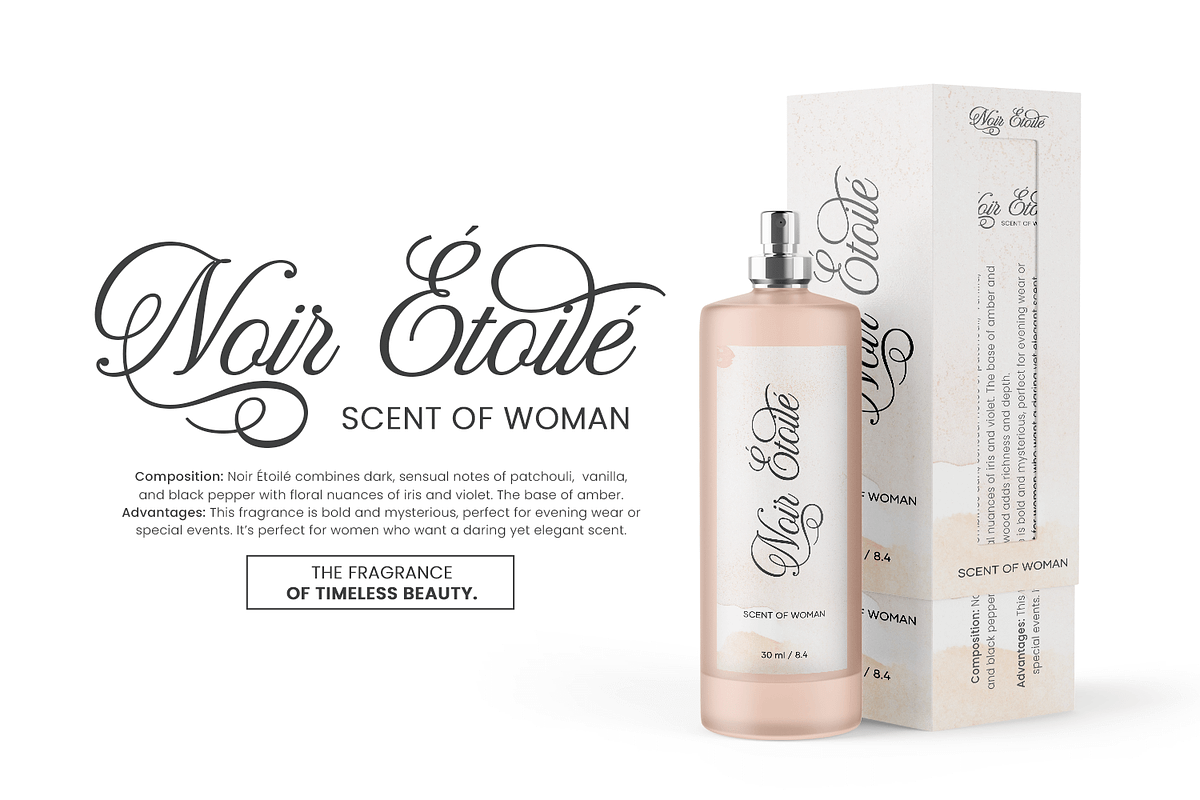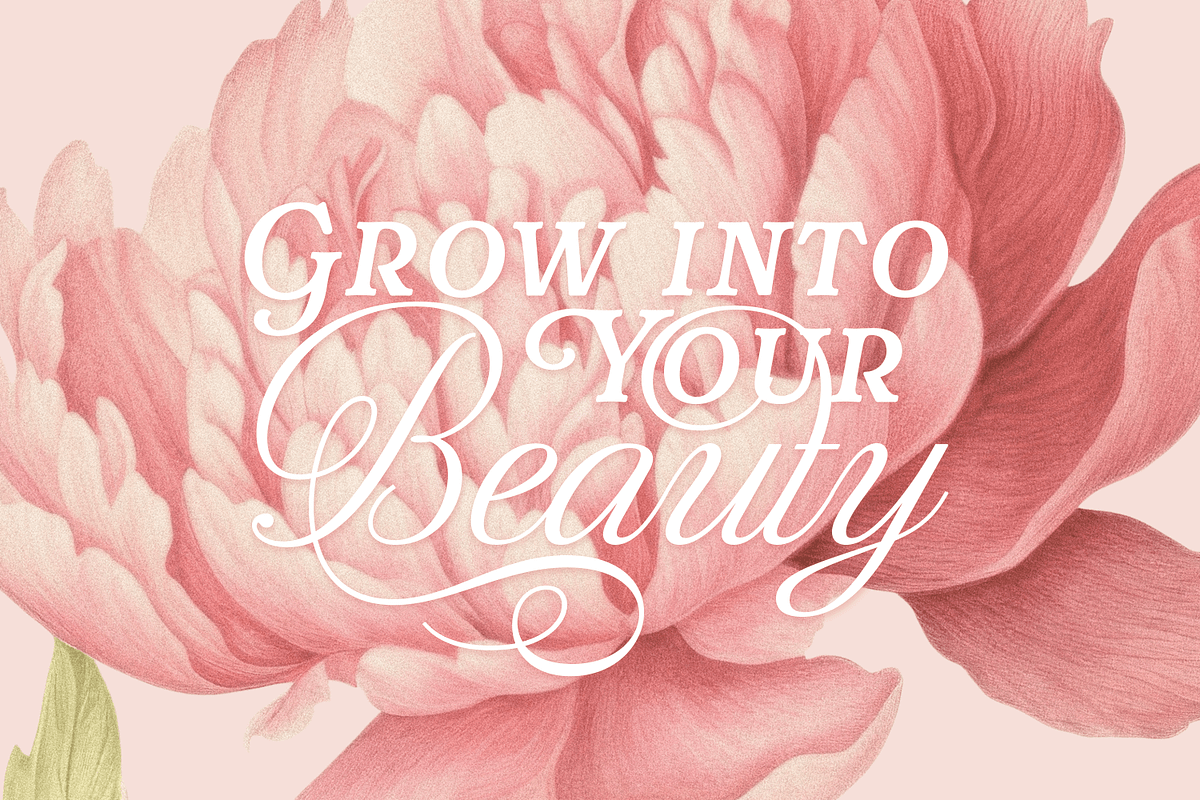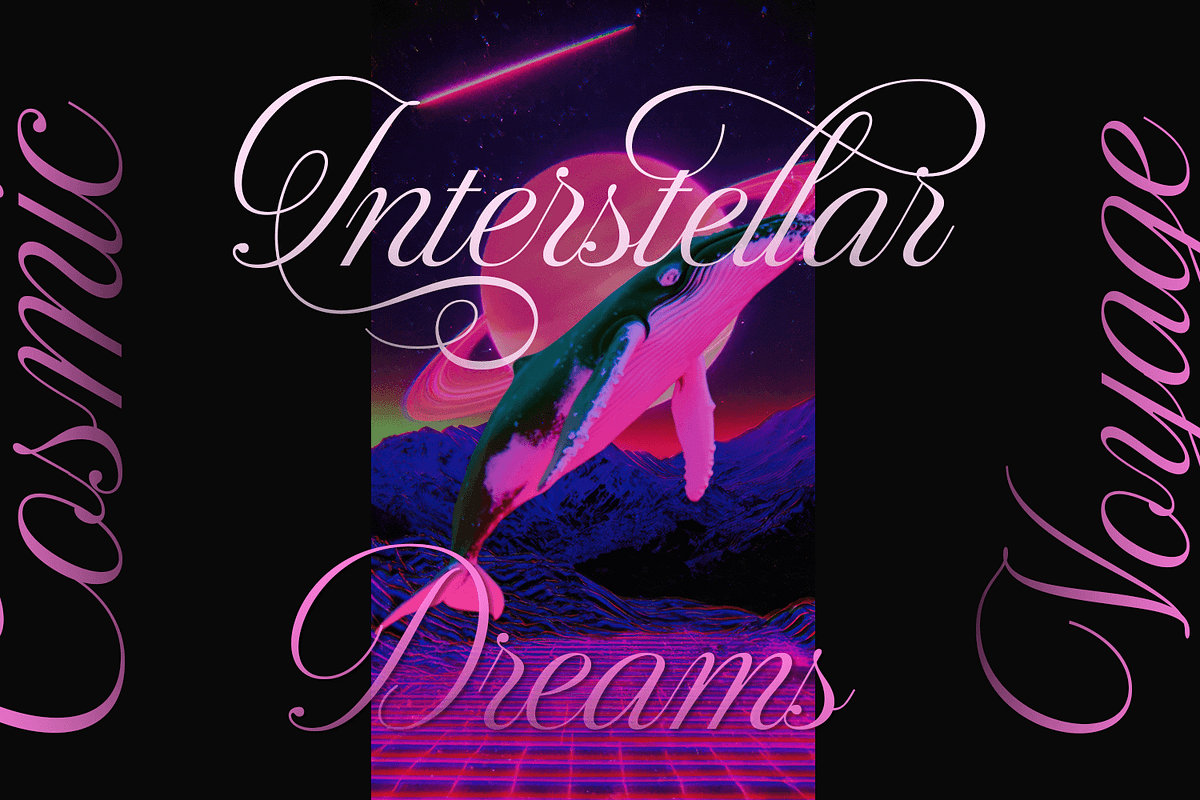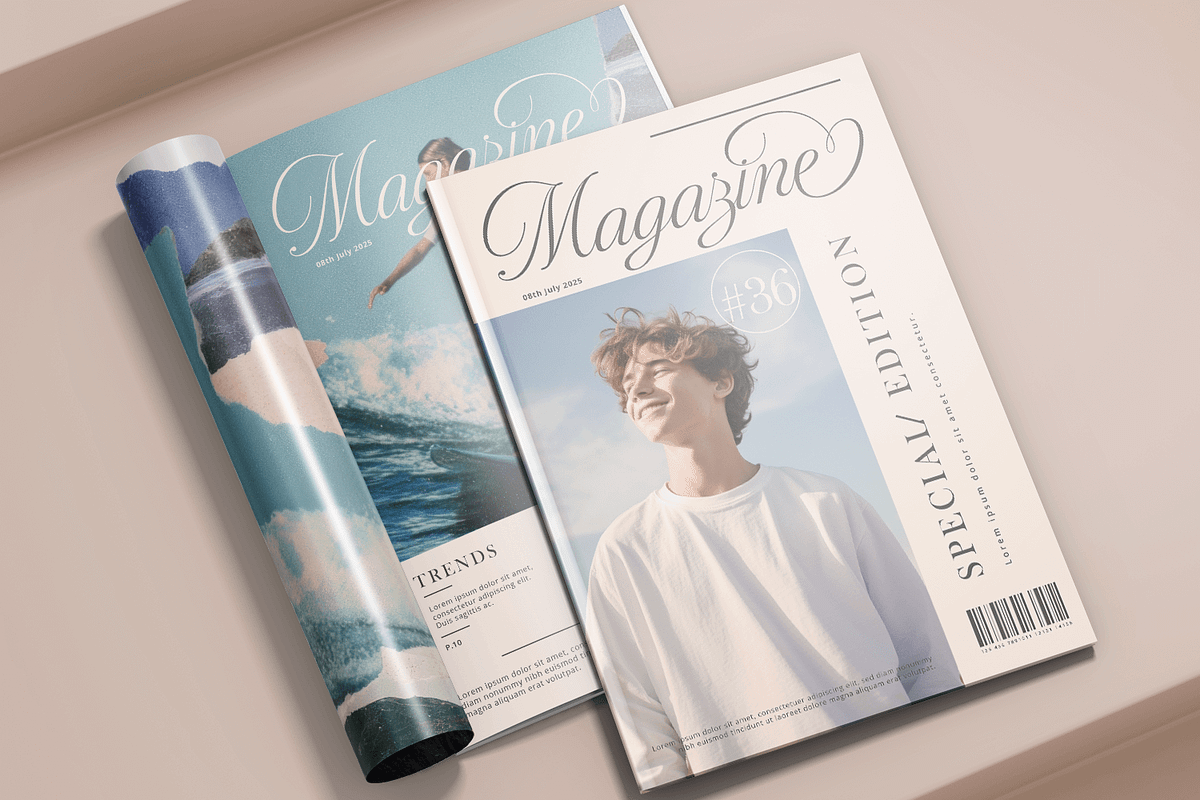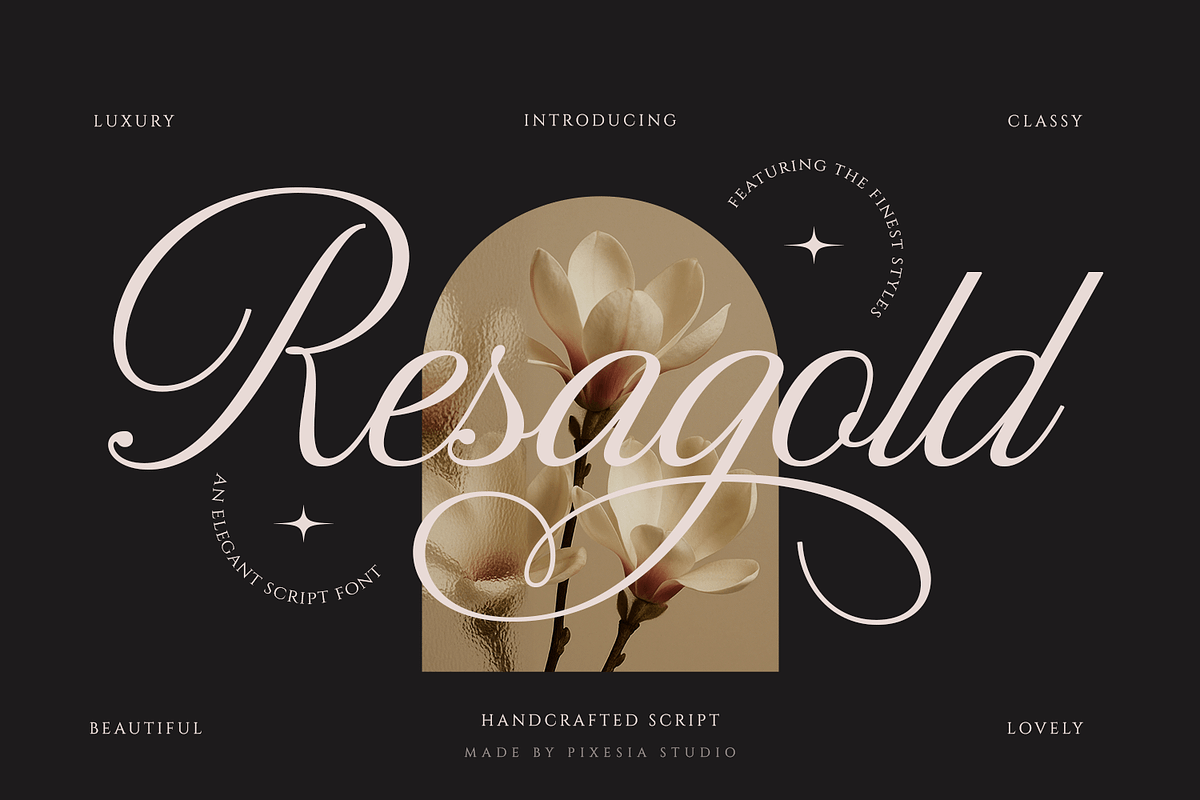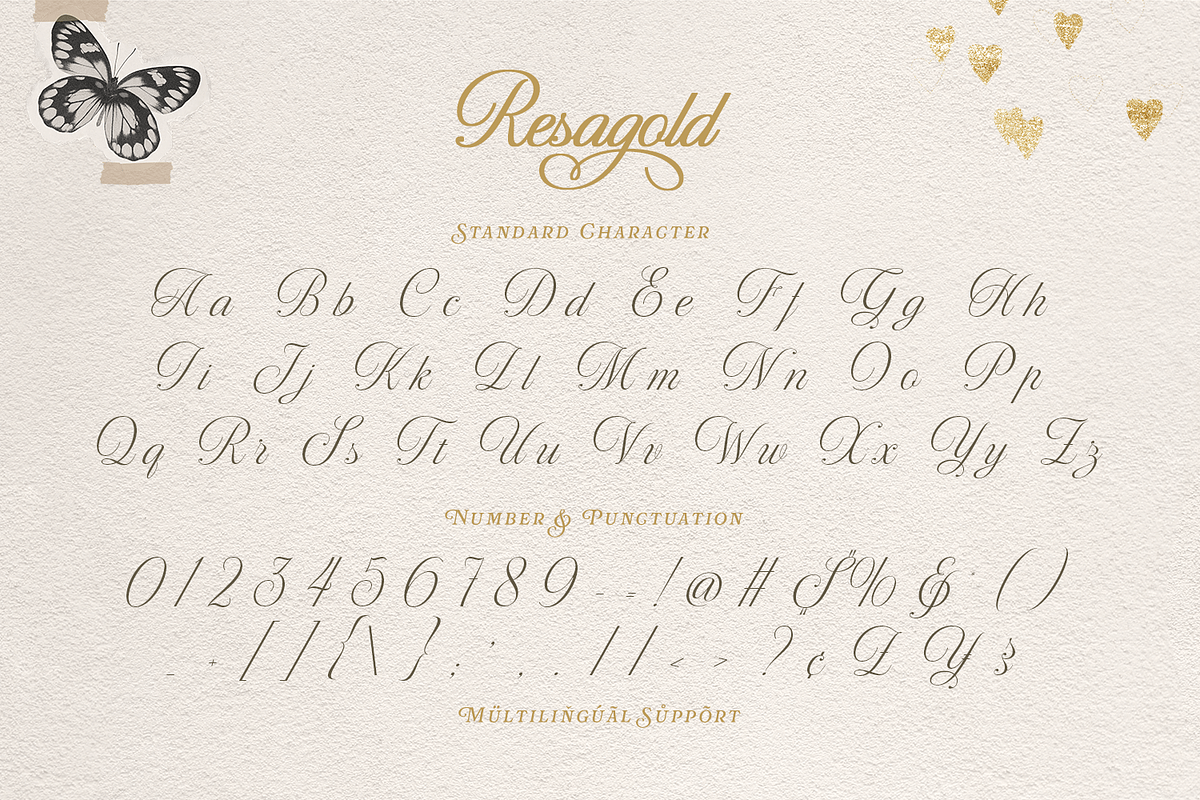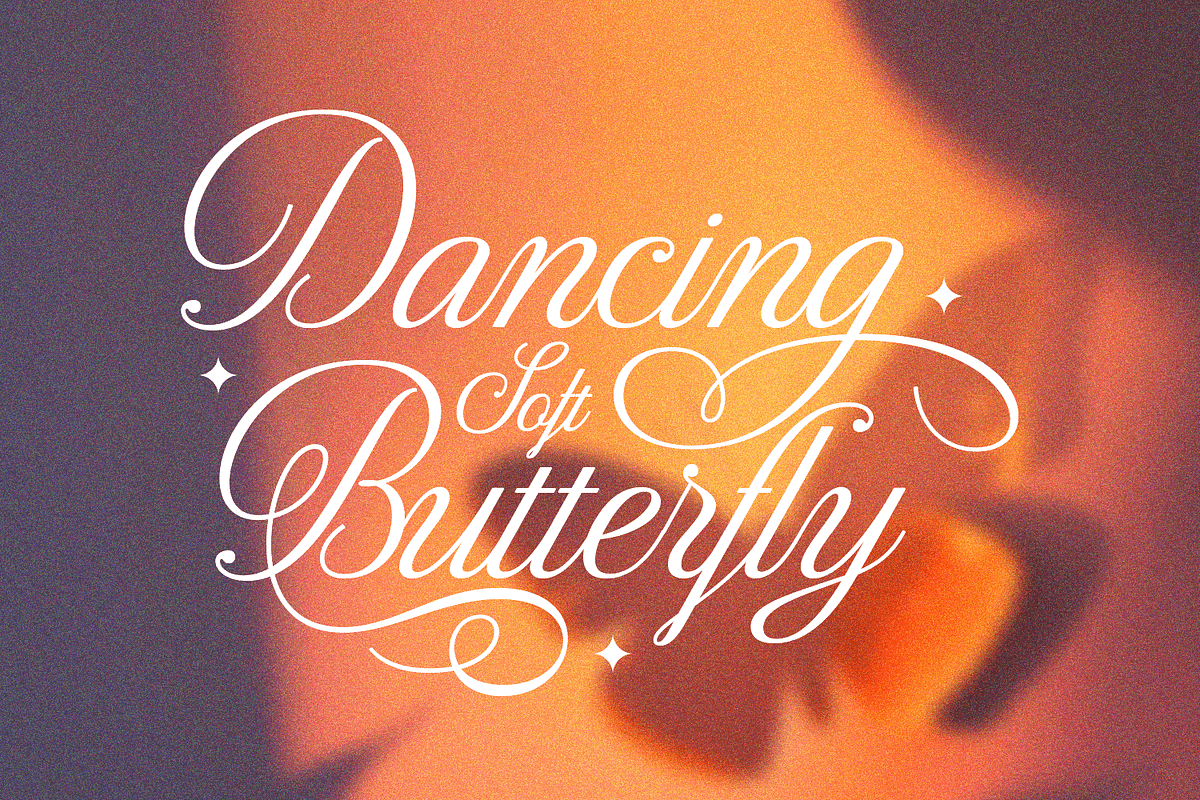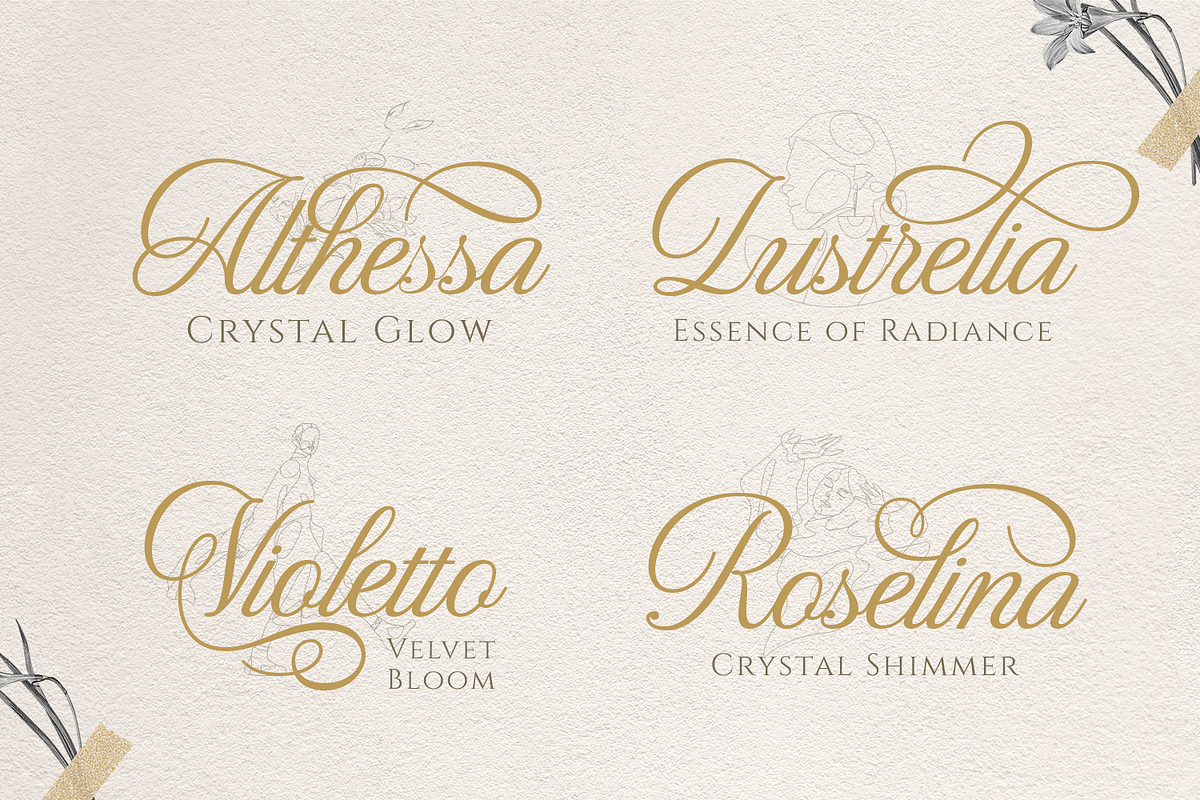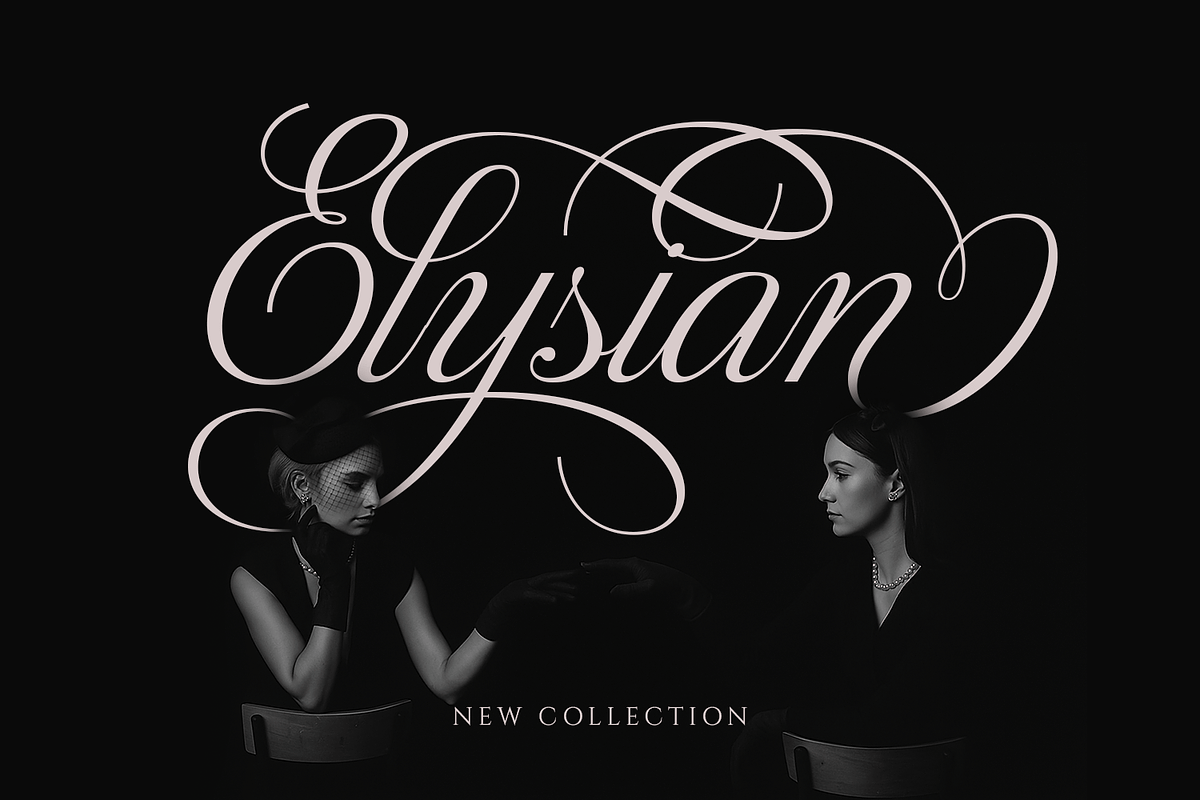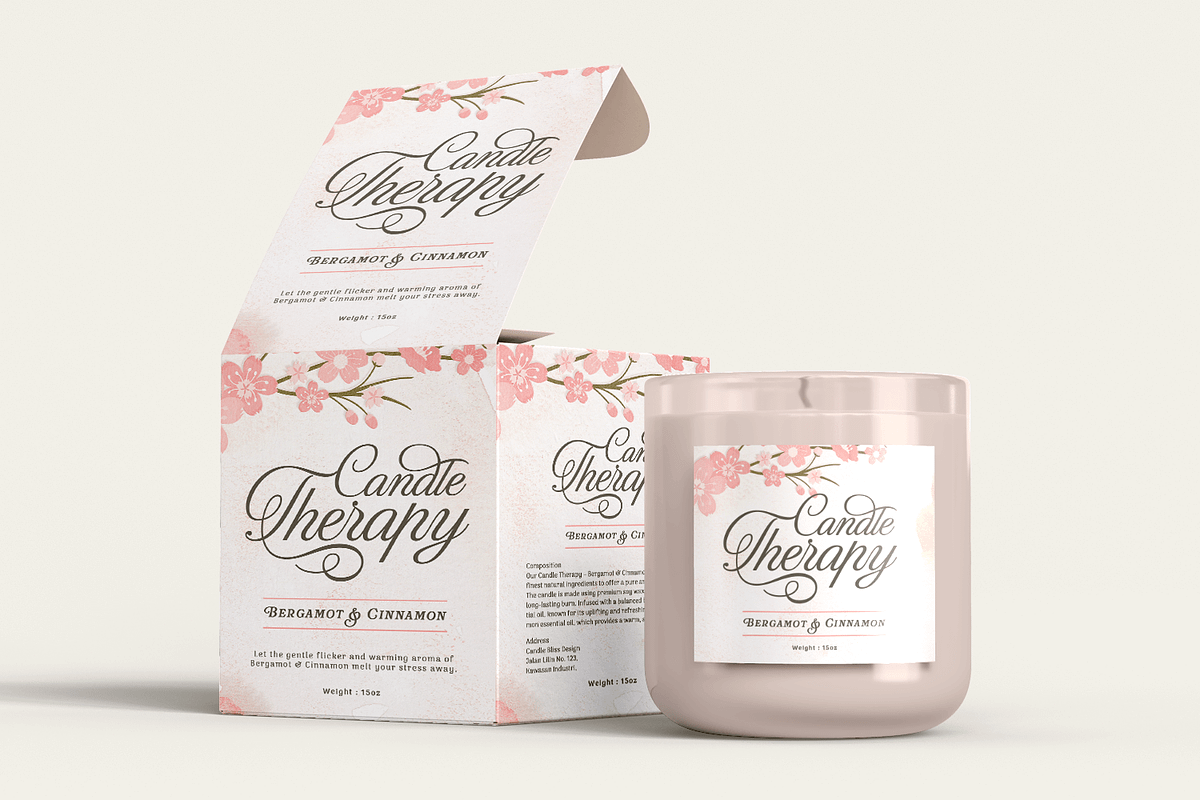
Resagold – Modern Cursive Script
Introducing Resagold – Elegant Luxury Script Font
Resagold is a modern cursive script font that radiates beauty and class. Featuring refined curves and luxurious swashes, it captures the essence of sophistication and timeless elegance, perfect for upscale branding and design projects.
Resagold is ideal for wedding invitations, feminine branding, logos, product packaging, social media posts, magazines, advertisements, and projects that seek a premium, graceful, and high-end aesthetic.
- Multilingual Support including Afrikaans, Albanian, Basque, Catalan, Danish, Dutch, English, Estonian, Faroese, Filipino, Finnish, French, Galician, German, Icelandic, Indonesian, Irish, Italian, Malay, Norwegian Bokmål, Portuguese, Spanish, Swahili, Swedish, Zulu